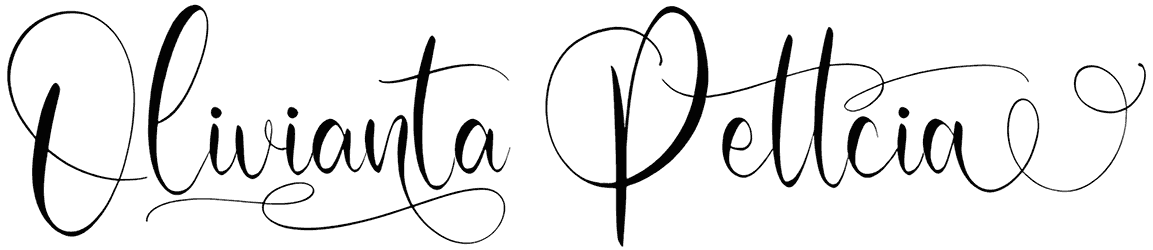
Olivianta Pettcia Font
Wedding invitations, greeting cards, logos, branding, and business cards would be the best possible field for utilizing a delicate script font such as Olivianta Pettcia that comes with cursive and well-rounded style.
Due to its lovely form, it can provoke a sense of precision, sympathy, approachability, or femininity in the audience’s minds and convince them to follow all of your creative ideas. This funeral font offers two styles and lets you add a bit of variety to your work.